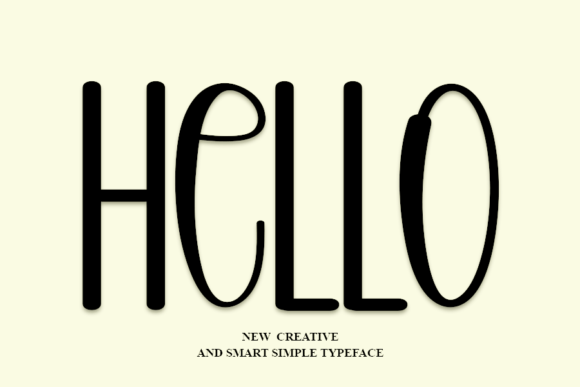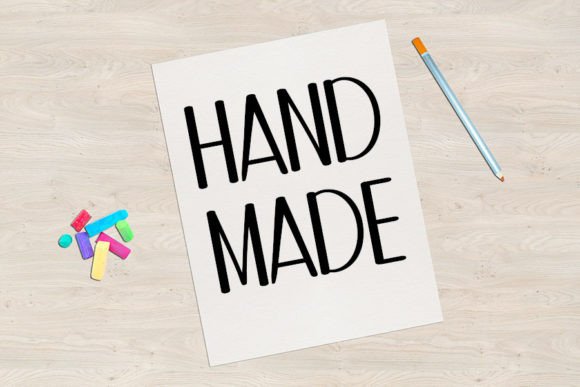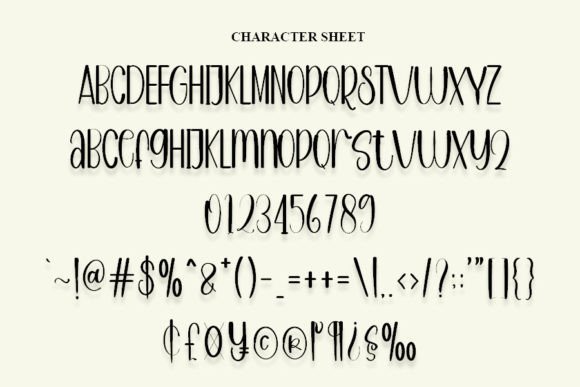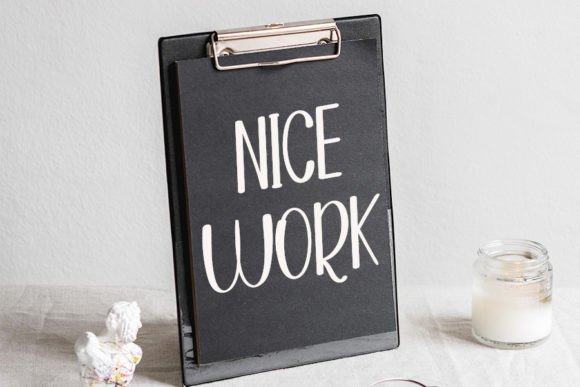
About Hello Font
Hellofont is a casual and relaxed script that brings warmth and style to your design projects. Its versatile nature makes it ideal for a variety of creative uses. Whether you’re working on elegant wedding invitations, unique stationery, or eye-catching social media posts, Hellofont adds a friendly and inviting touch to your work.
Casual and Relaxed Script Style
The natural flow of Hellofont mimics genuine handwriting, making it perfect for projects that need a personal feel. Its soft curves and balanced strokes create a warm, approachable look. This makes Hellofont an excellent choice for wedding invitations, where a heartfelt and charming impression matters most.
Ideal for Stationery and Branding
Hello font’s adaptability extends to stationery designs and branding materials. It adds personality to thank-you cards, event programs, and business cards. When used in branding, it helps convey authenticity and a handcrafted vibe, making your brand feel more relatable and memorable.
Great for Social Media Content
In the digital world, Hellofont shines in social media posts and promotional graphics. It grabs attention with its stylish yet approachable look. Use it to create engaging visuals that connect with audiences on platforms like Instagram, Facebook, and Pinterest.
Why Choose Hello Font?
Hellofont offers the perfect blend of casual charm and elegant design. It’s versatile enough to enhance various projects while maintaining a consistent, inviting style. Adding Hellofont to your creative toolkit will elevate your designs with a genuine, handcrafted touch that resonates with viewers across different media.